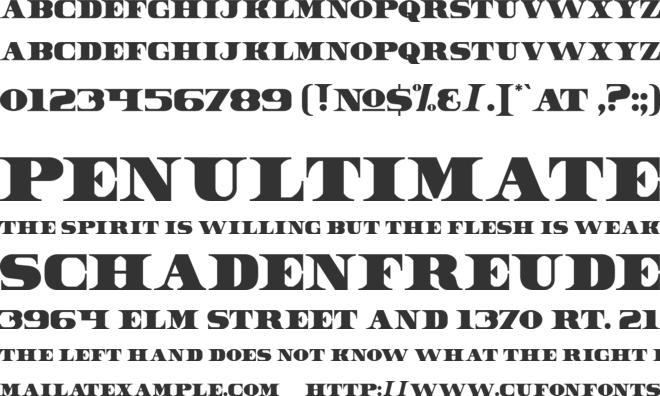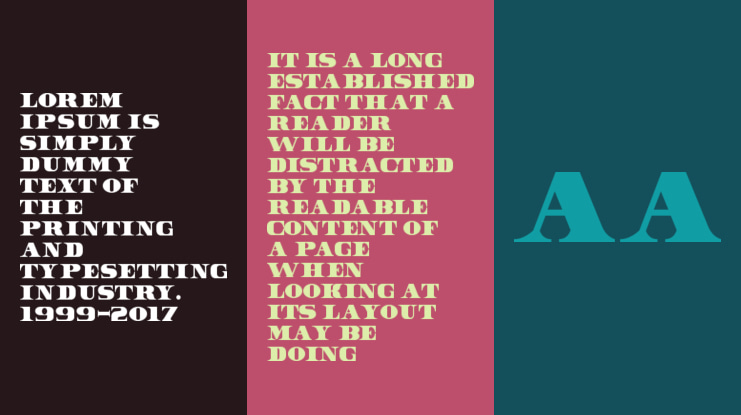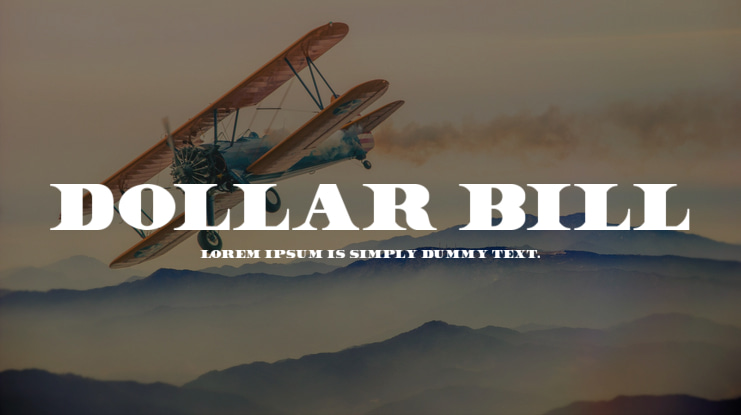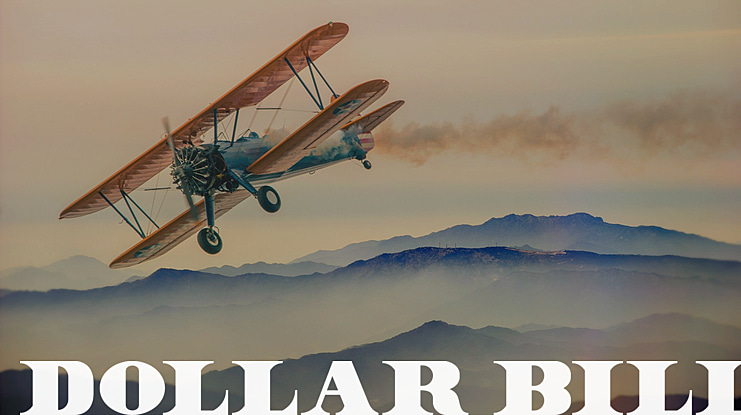
Dollar Bill Font
Dollar Bill is an all caps font that taken / inspired from letters in dollar bill. Available in upper/lowercase, numerals and basic punctuations.